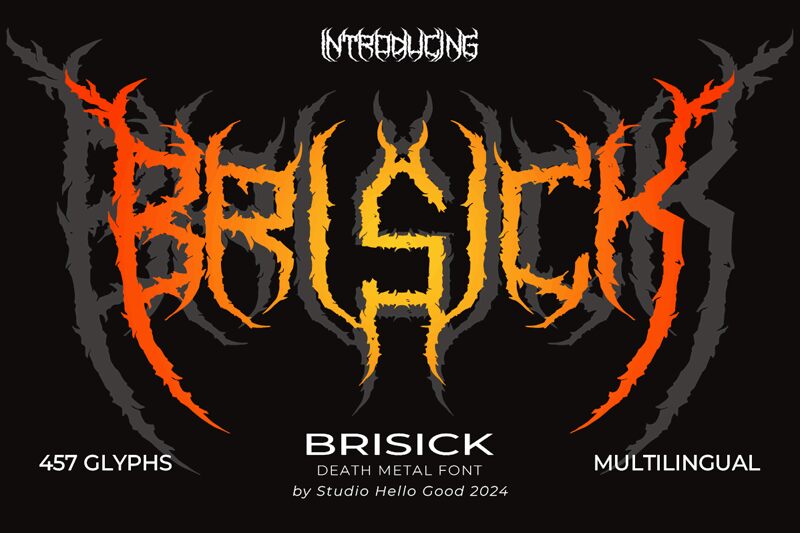
Brisick font by Studio Hello Good is a horror-themed font inspired by 70’s Villains’ revenge. It combines tall, sinister, and coarse letters that altogether remain scary, mysterious, and outstandingly aesthetic at the same time.
Convey horror, darkness, and subtlety into posters, invitation letters, books, magazine covers, photo captions, tattoo designs, and more. Reach your satisfaction using this font and get as terrifying a visual result as you put up in mind.